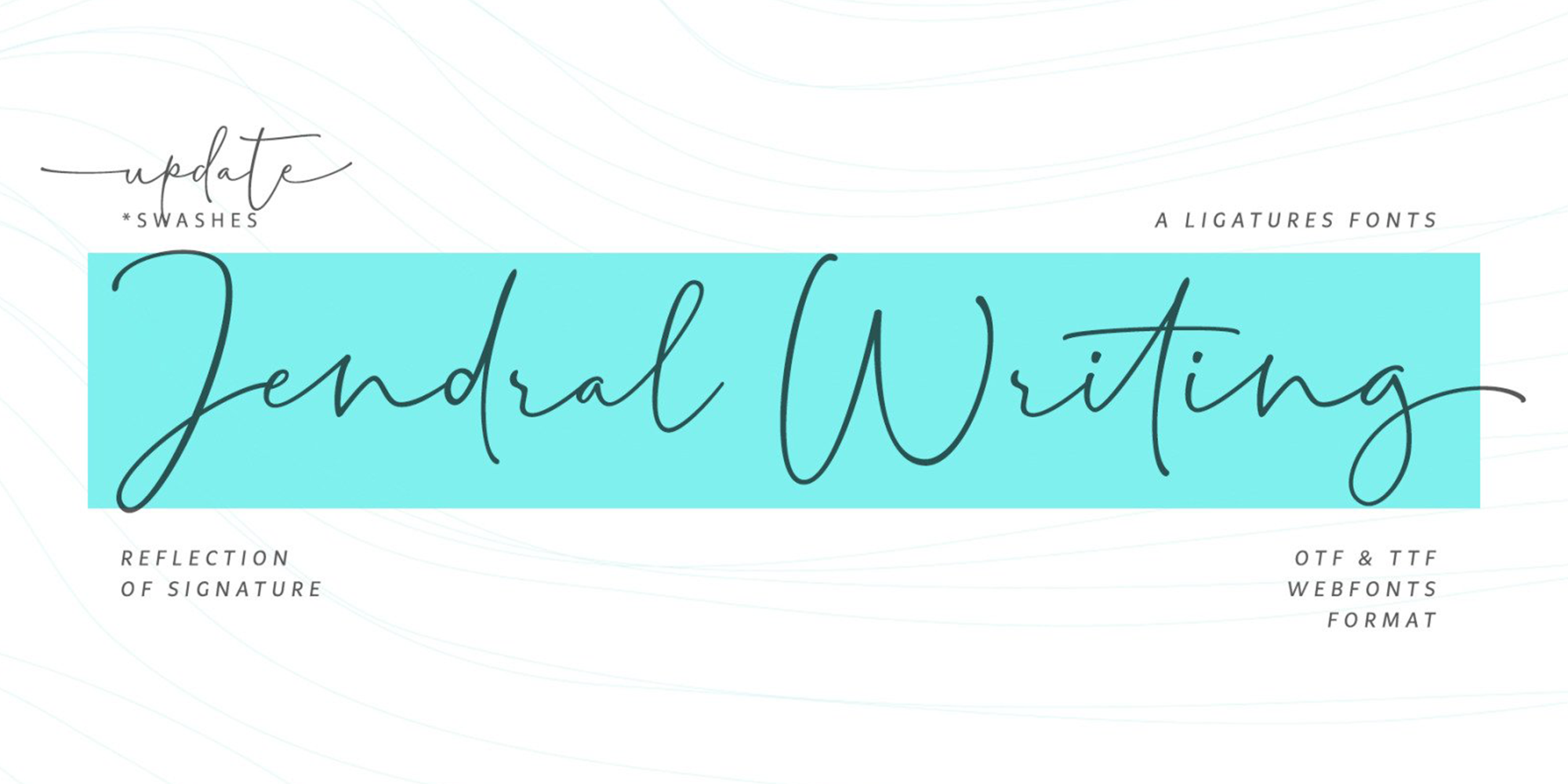
Jendral Writing
Designed by Sarwo Edi, Jendral Writing is a script font family. This typeface has two styles and was published by Saffatin Co.
Introducing Jendral Writing Pro, a premium Latin script font designed to capture the essence of modern handwritten calligraphy. This highly versatile font features a natural, flowing script style, inspired by contemporary hand-lettering trends. It offers a realistic handwritten feel with over 630 ligatures—comprising 94 special ligatures, 536 standard ligatures, and a set of lowercase alternates.
With advanced OpenType features, Jendral Writing Pro brings your text to life, mimicking the personal touch of hand lettering. In Adobe software, you can disable the “OpenType” feature to randomly access different ligatures for a more dynamic and organic result.